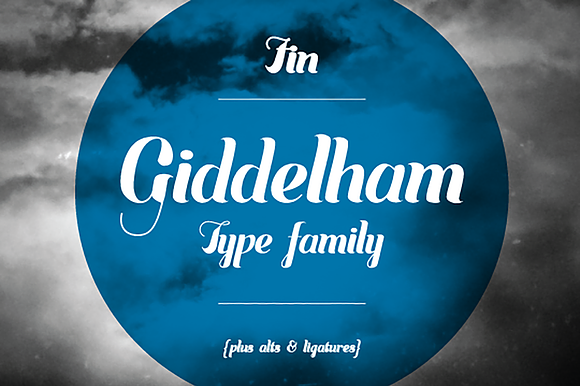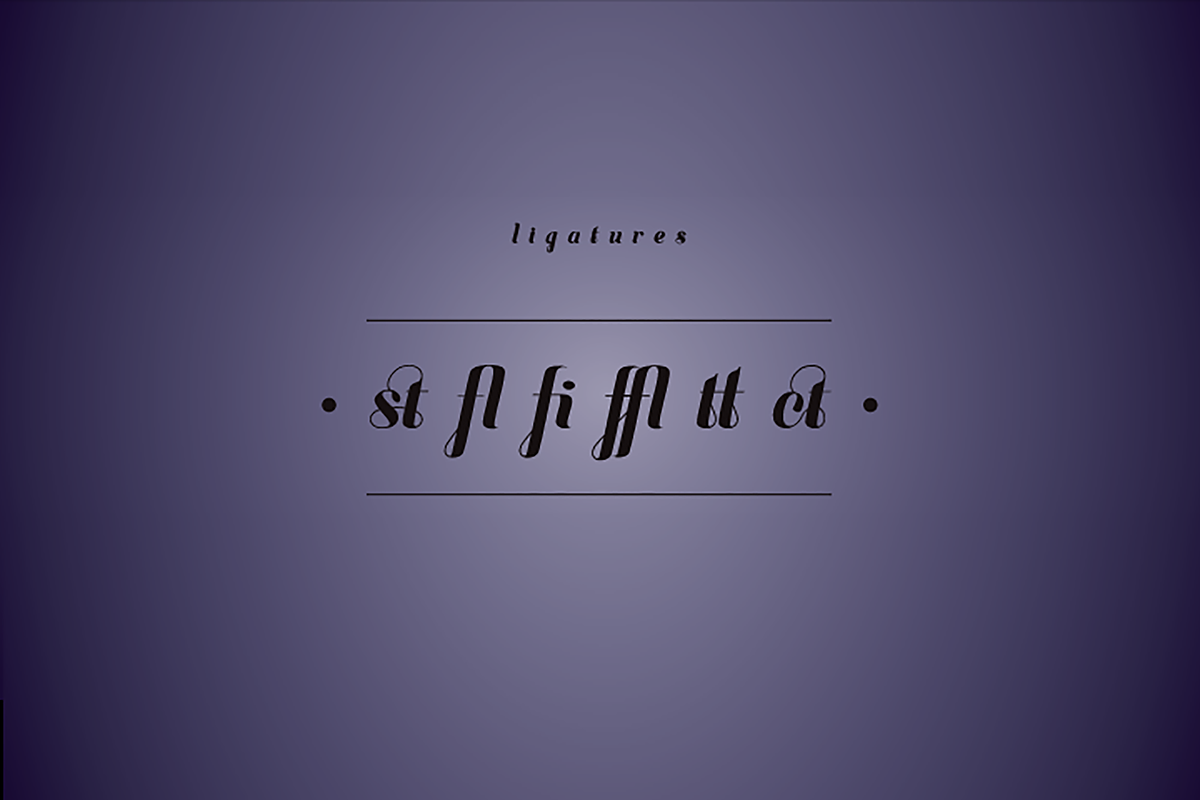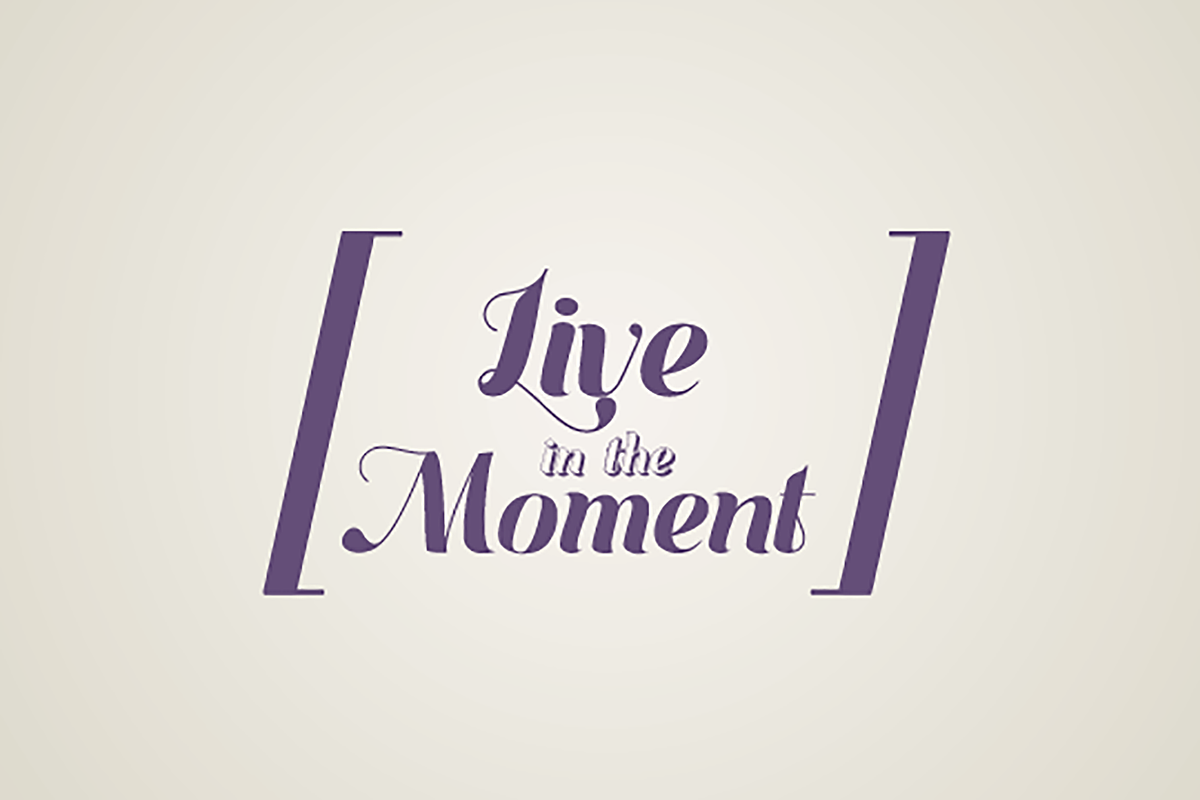
Giddleham Family - Display Font
Introducing Giddleham font by We are colt.
Giddleham is classy, curvy and italic. A bold set of characters which flow into an elegant, simple flourish. Giddleham offers several ligatures to help the flow and shape of your words.
Giddleham is ideal for titles, subheadings and makes for a great start point for a sexy logo.
This set includes uppercase and lowercase letters, numerals, a range of punctuation and ligatures. Free shadow set included.
This font will add a really unique and bespoke finish to your project.
- Standard, Bold and Shadow